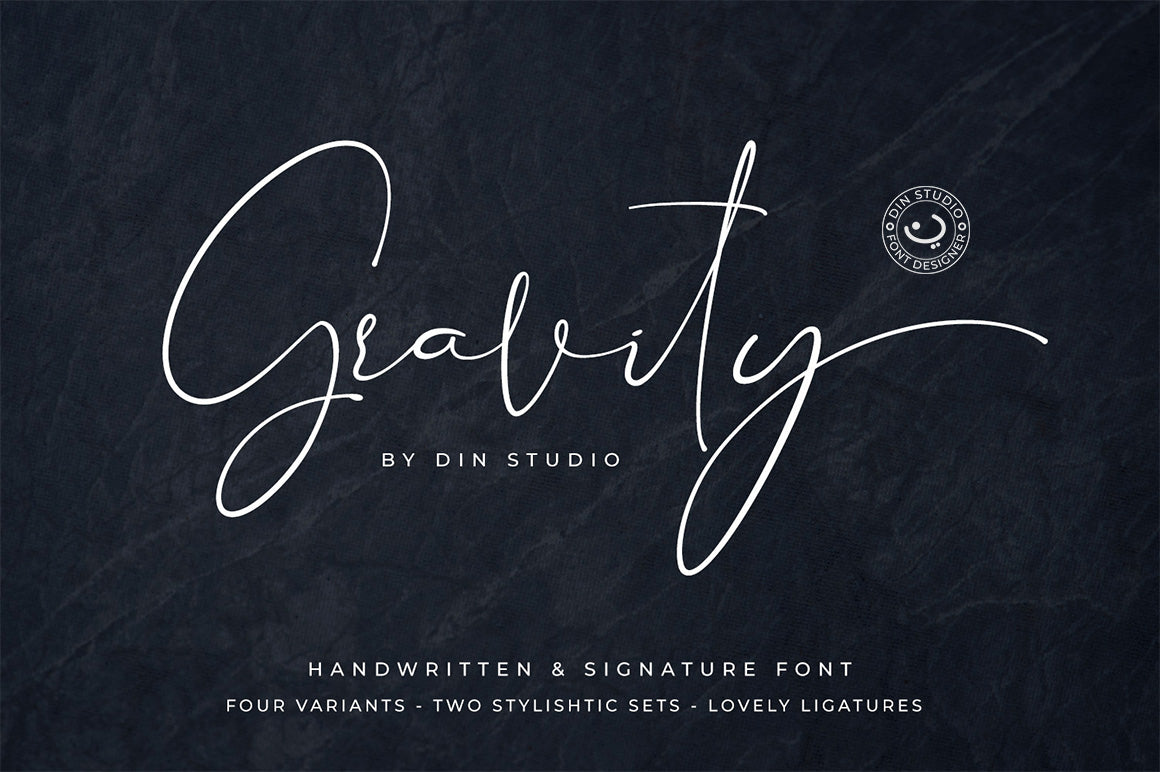
Free Gravity Handwritten and Signature font
Introducing you to the absolutely beautiful free gravity handwritten and signature font. Download this free typeface from the original source of Din Studio. You can create a professional designs with this cool font.